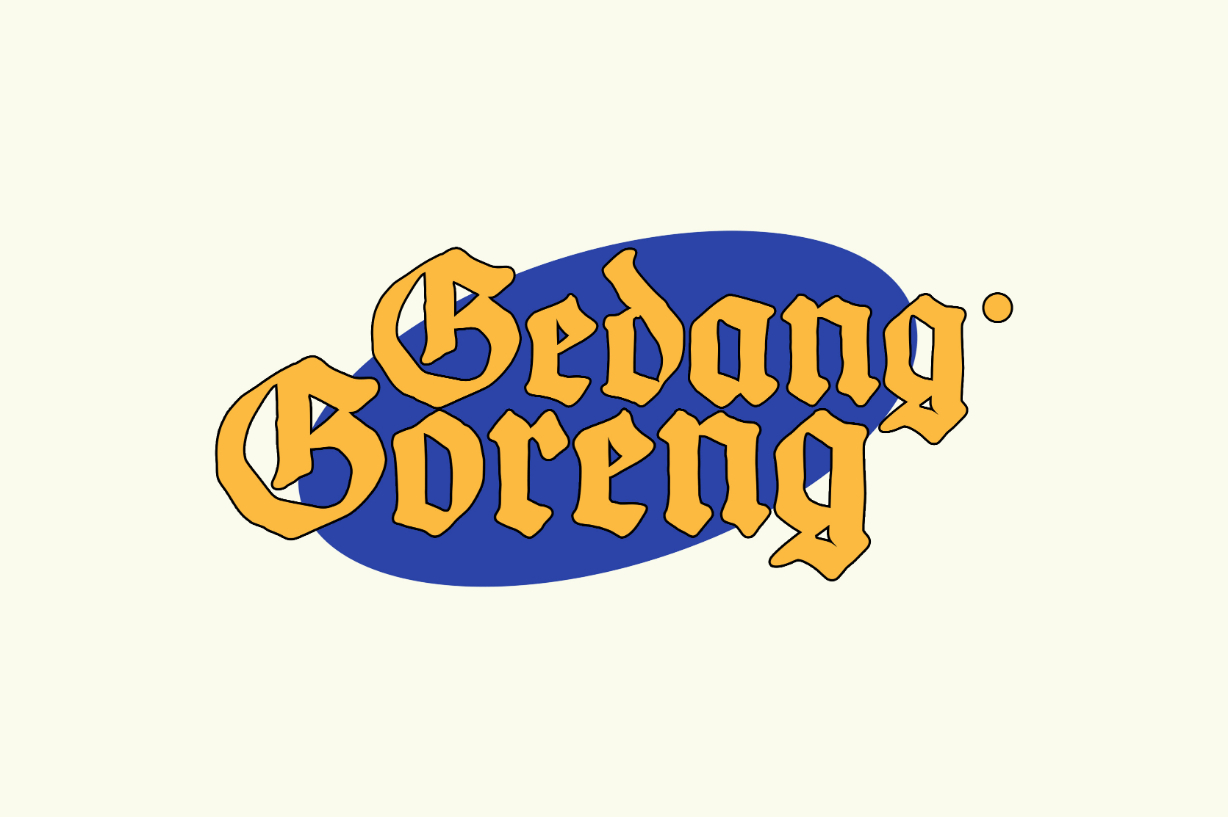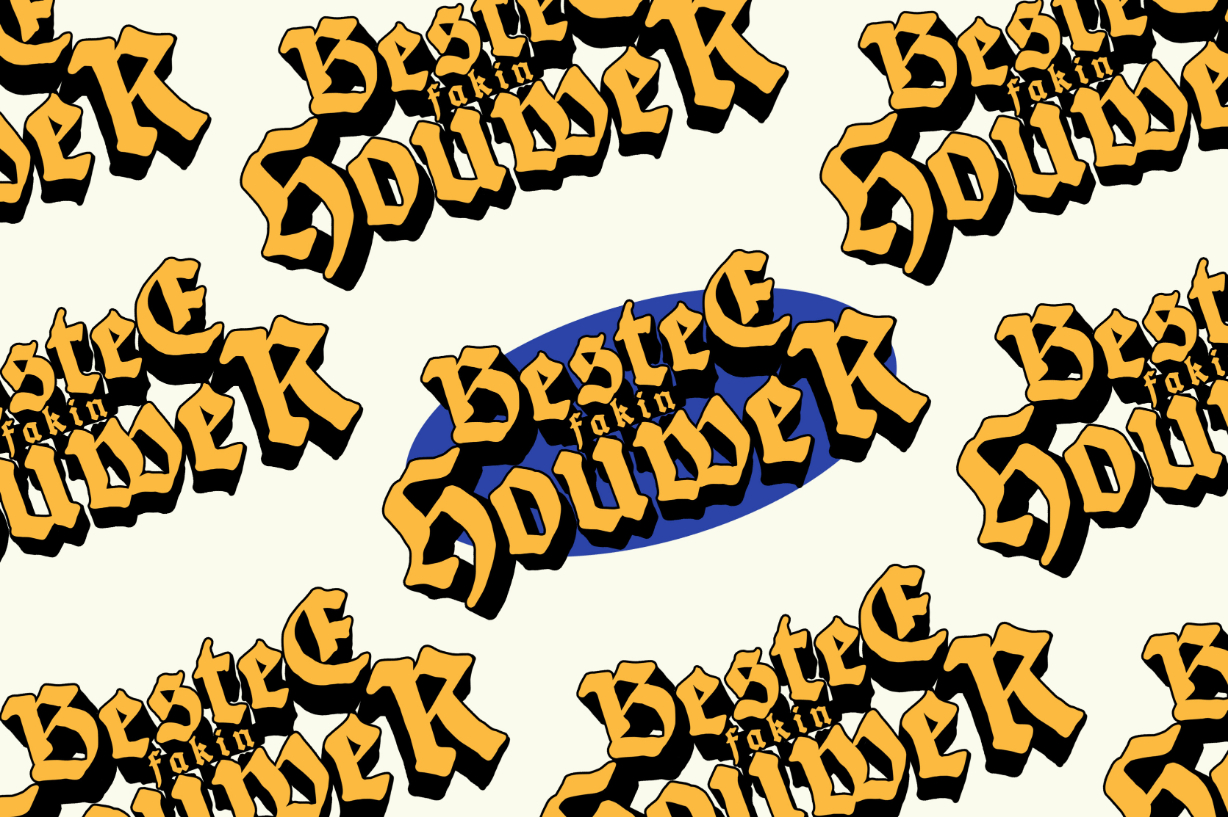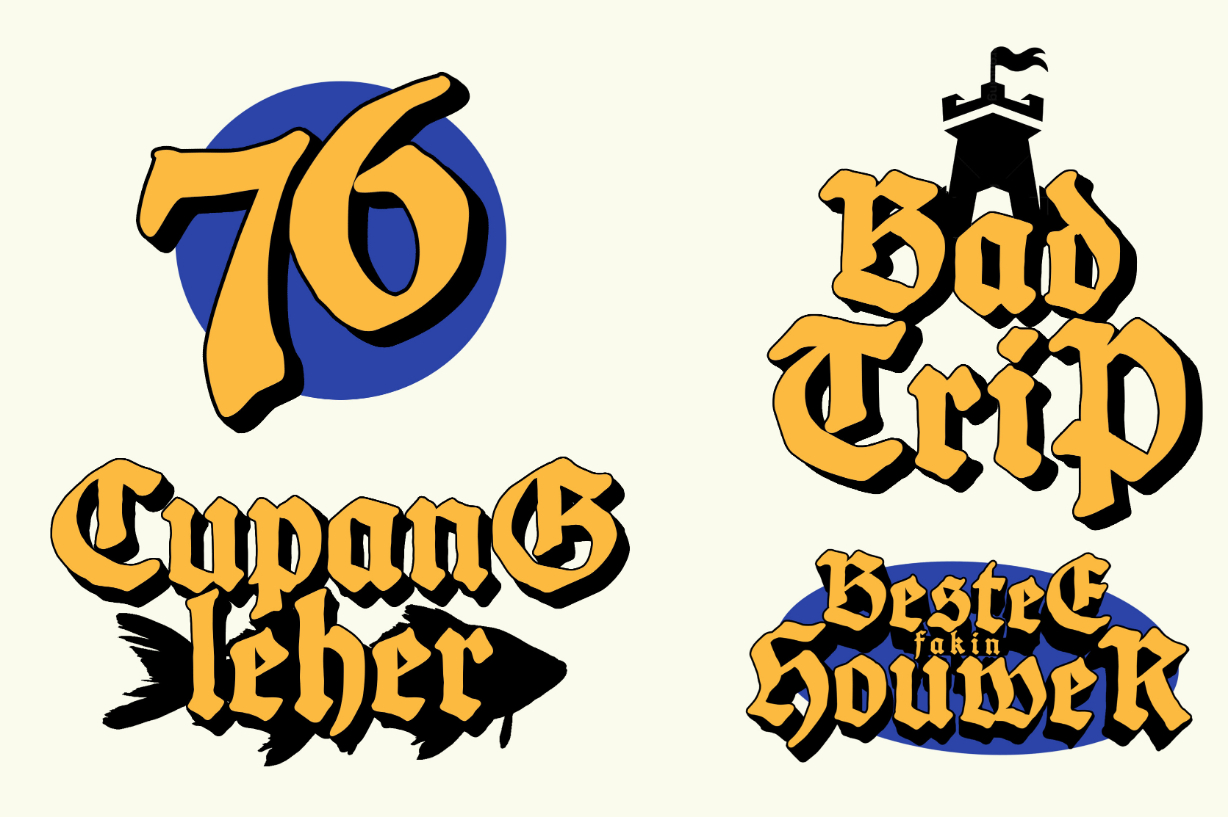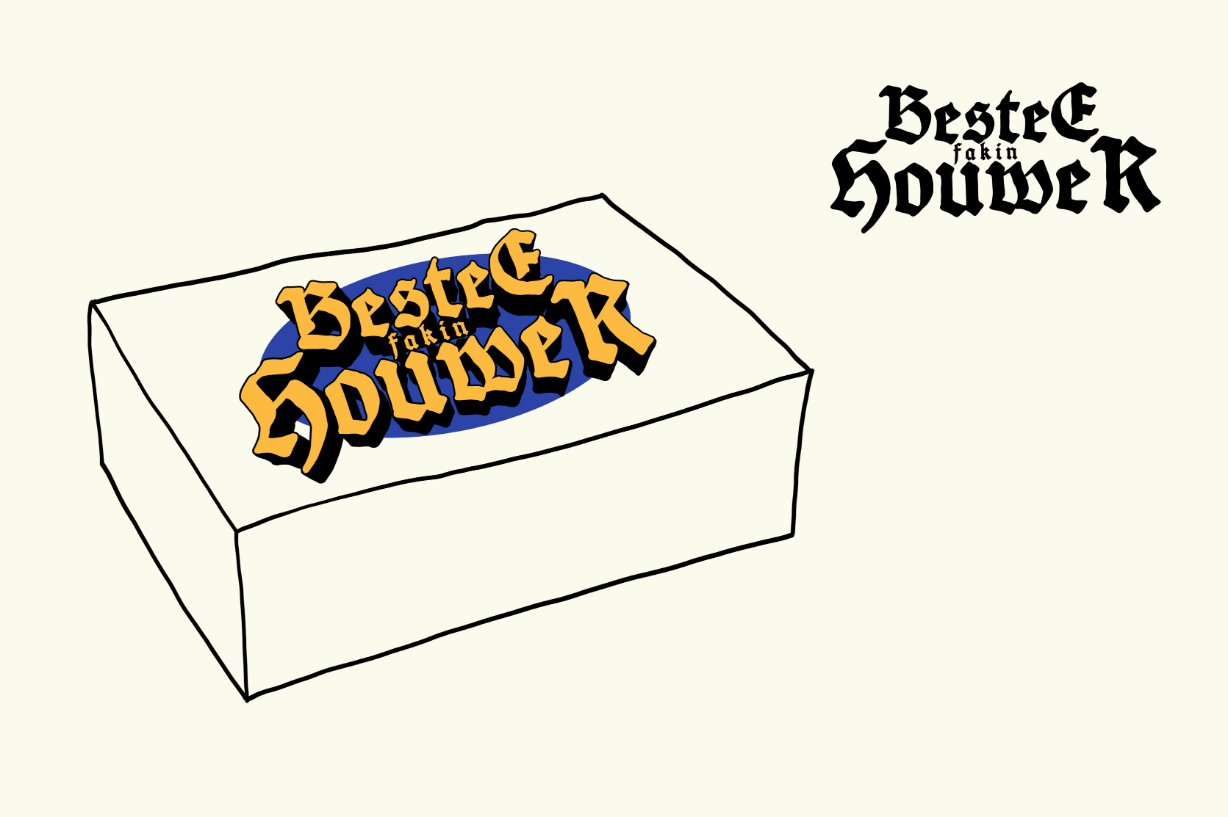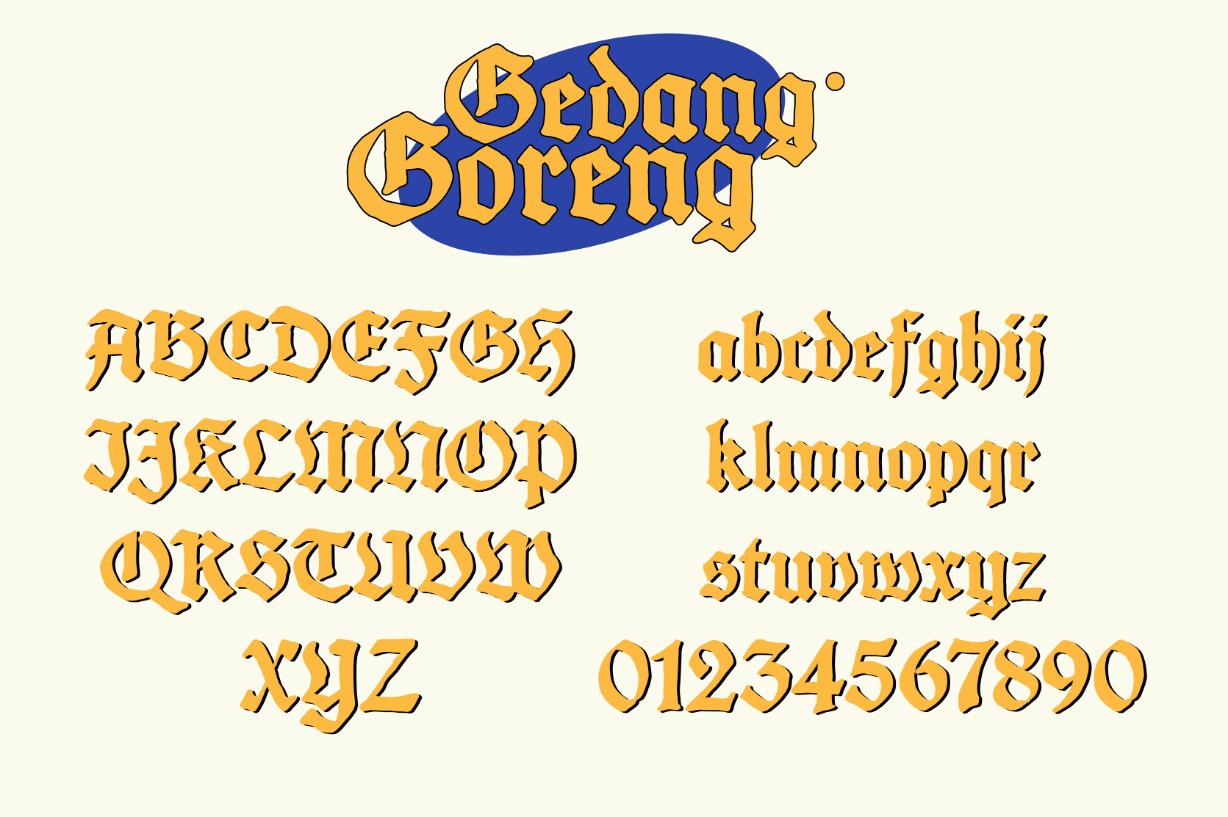
Gedang Goreng Font
About Gedang Goreng Font
Gedang Goreng is a black letter font with a nice heavy metal touch. This font is ideal for any design that requires a firm touch. Add it confidently to your projects, and you will love the results.